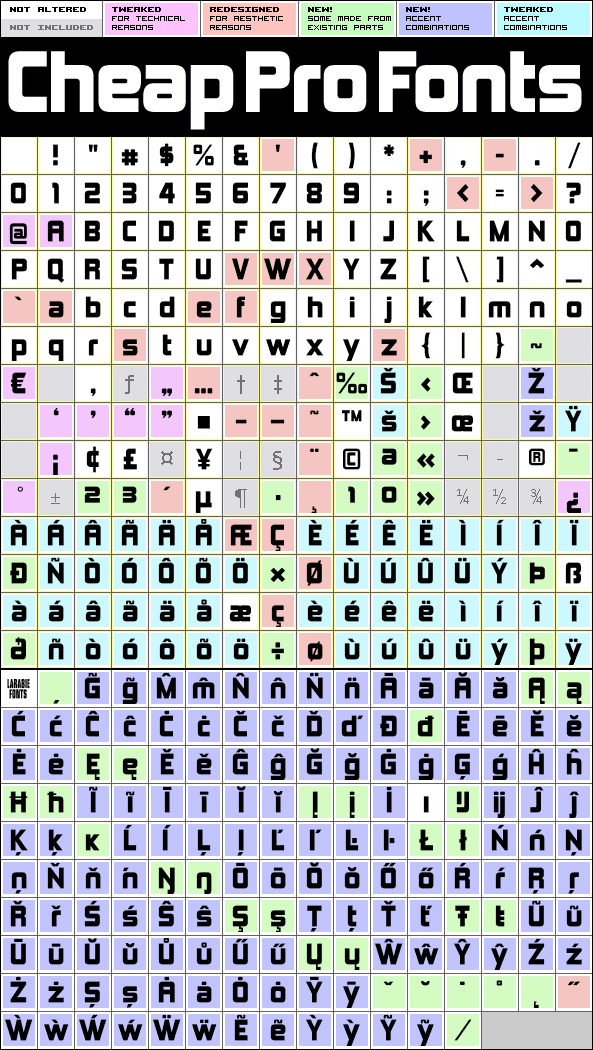
Kimberley Pro
Kimberley Pro by Ray Larabie
Ray Larabie
360 glyphs!
(185 in original)
360 class kernpairs
= 6077 kerning pairs
(273/479 in original)
A very fat and filling font - perfect for setting quite solid blocks of text. I have redesigned all the diacritics to make them match the fonts sturdy look. And expanded it, of course ;)
Ray Larabie says: "A blocky early 1970’s style stovepipe font."
Kimberley Pro is a professionally reworked font that contains an extended character set for setting text in 65 languages requiring more than the basic A-Z!